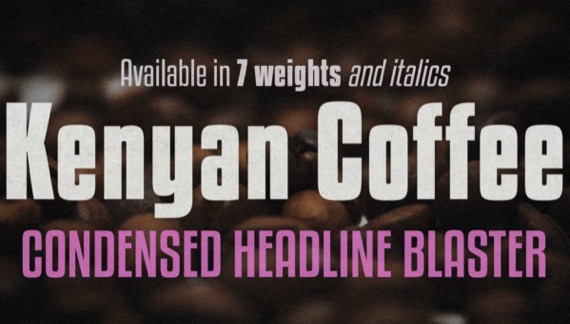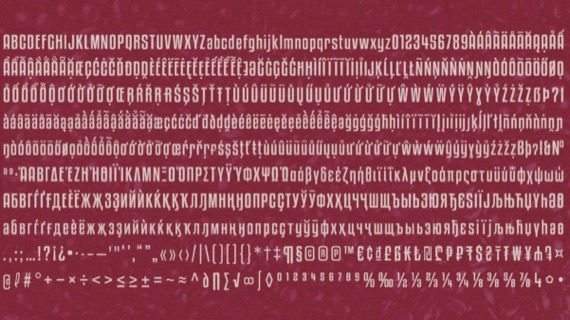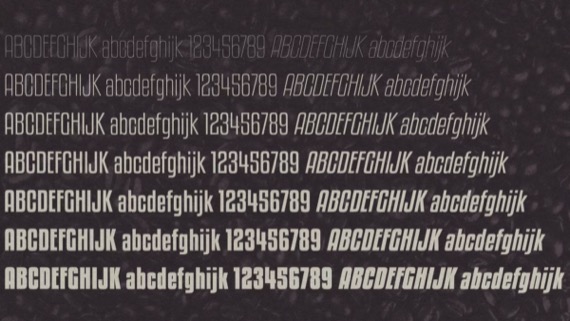
Kenyan Coffee is a new and fresh display sans font family. This typeface has fourteen styles and was published by Typodermic Fonts Inc.
Get ready to give your designs a blast from the past with the Kenyan Coffee typeface! Inspired by the bold, blocky fonts that graced headlines in the 1960s, Kenyan Coffee is a sleek, compact typeface that exudes industrial chic.
The sharp lines and innovative design of Kenyan Coffee give your message a distinctive appeal that’s sure to make it stand out from the crowd. Whether you’re designing a sleek modern logo or a retro-inspired poster, Kenyan Coffee’s seven weights and italics give you the flexibility to create the perfect look for your project.
And for an even bolder statement, be sure to check out Kenyan Coffee Stencil. With its rugged, industrial look, this typeface is perfect for creating eye-catching designs that demand attention. So why settle for boring, everyday fonts when you can make a statement with Kenyan Coffee? Try it today and see the difference it makes!
Kenyan Coffee Display Sans Font